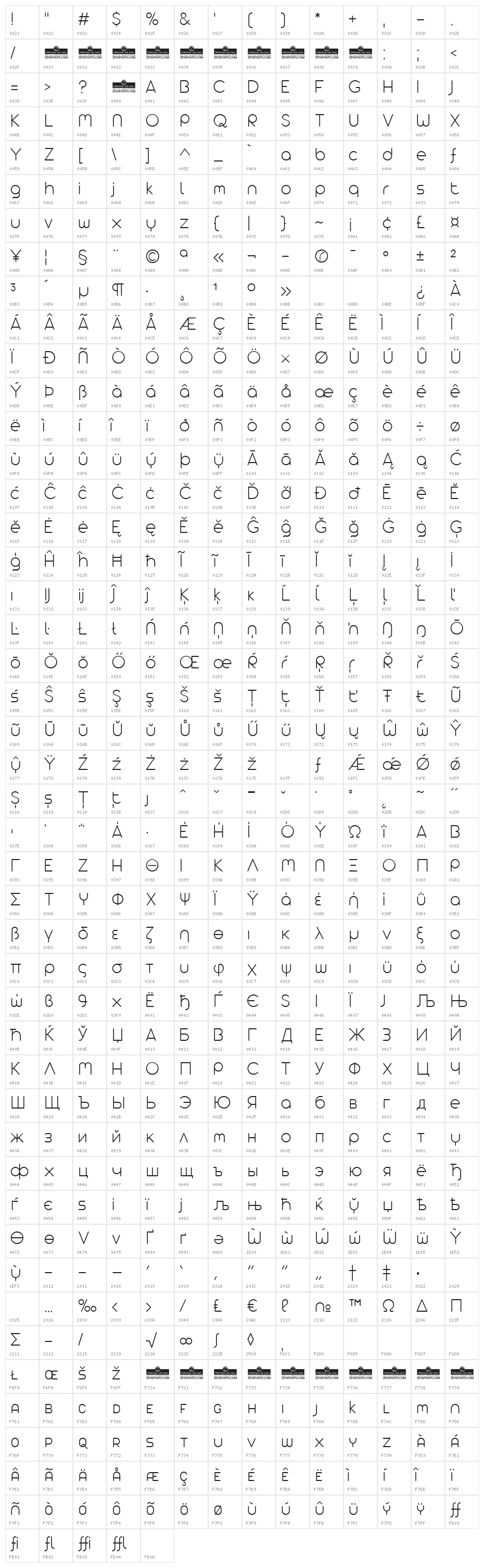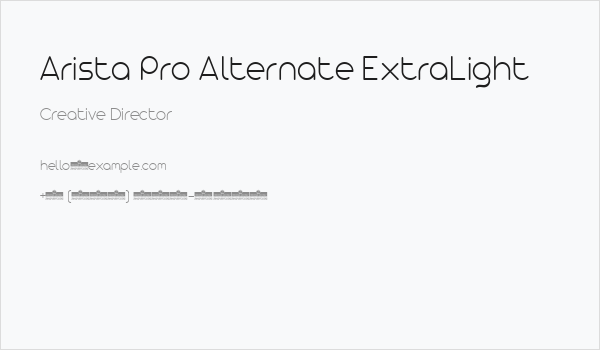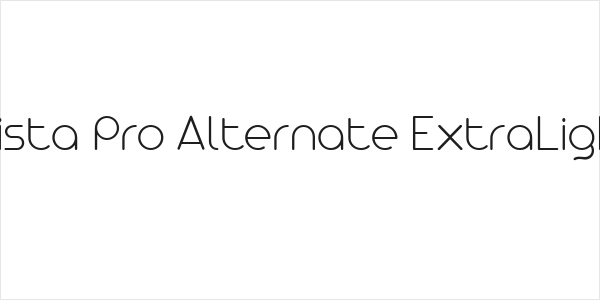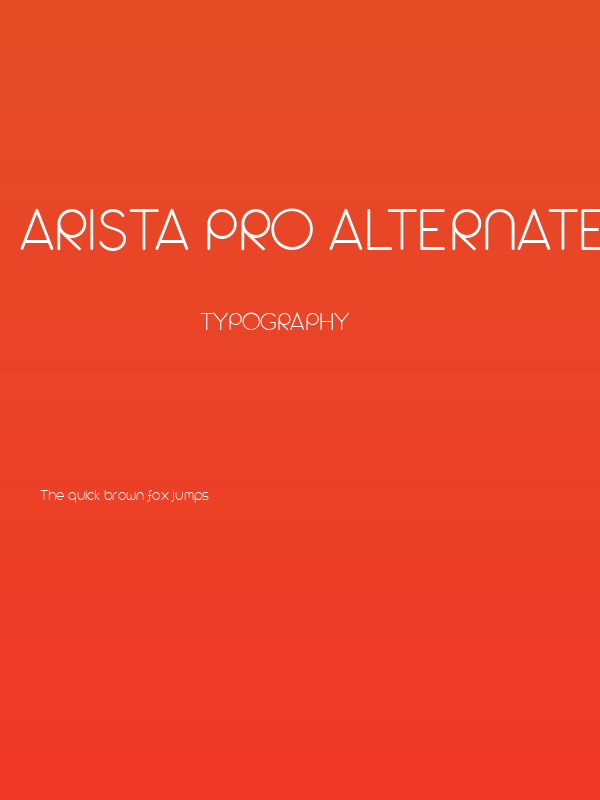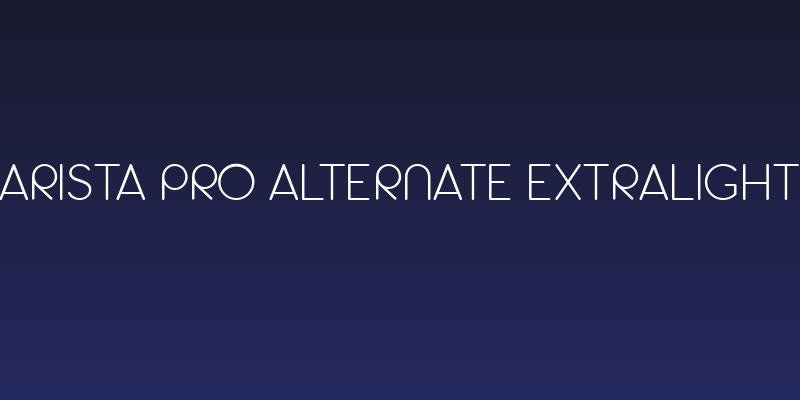
Arista Pro Alternate ExtraLight Font
Arista Pro Alternate ExtraLight Description
This font features a sleek and modern design with a minimalist aesthetic. The characters are crafted with smooth, rounded edges and a consistent stroke width, giving it an elegant and contemporary look. The uppercase and lowercase letters maintain a uniform style, with a slight geometric influence that adds to its clean appearance. The numerals and special characters are designed to complement the alphabet, ensuring a cohesive visual experience. This font is ideal for projects that require a sophisticated yet approachable feel, making it suitable for a variety of design applications.
| Proposed Projects | Ideal for branding, web design, advertising, and editorial projects that require a modern and clean look. |